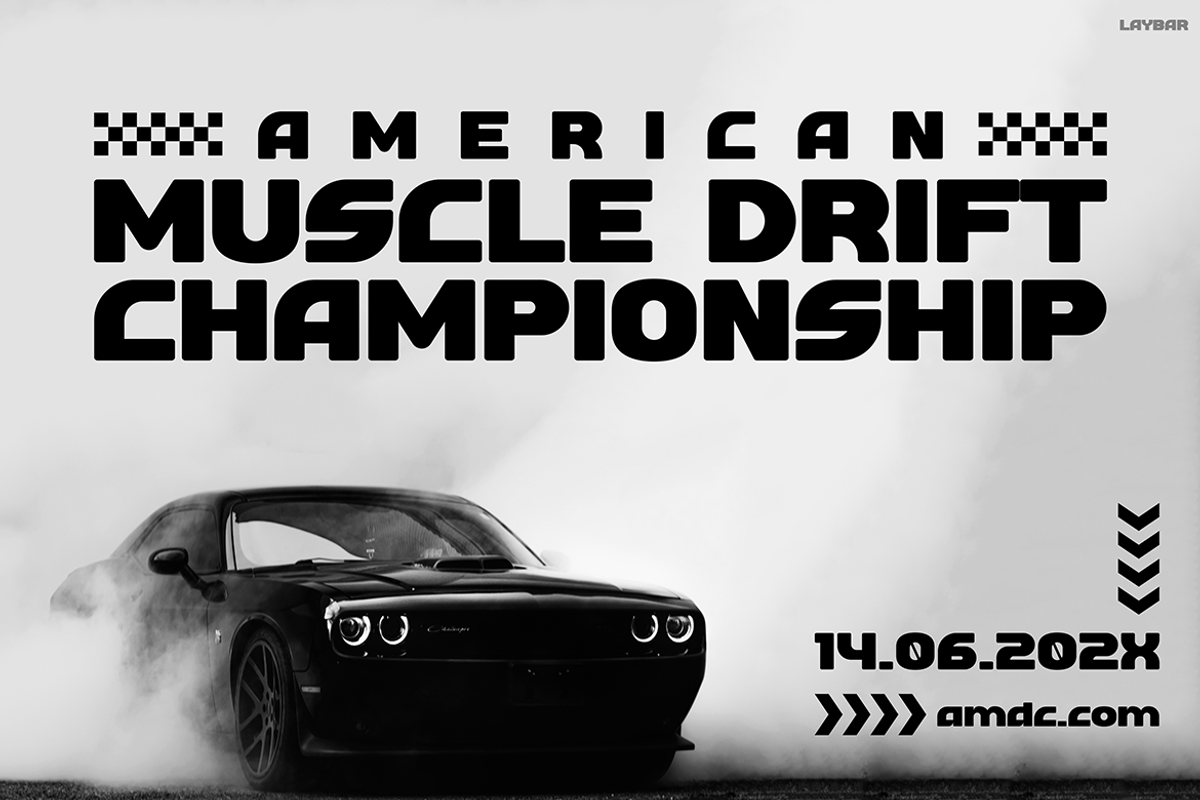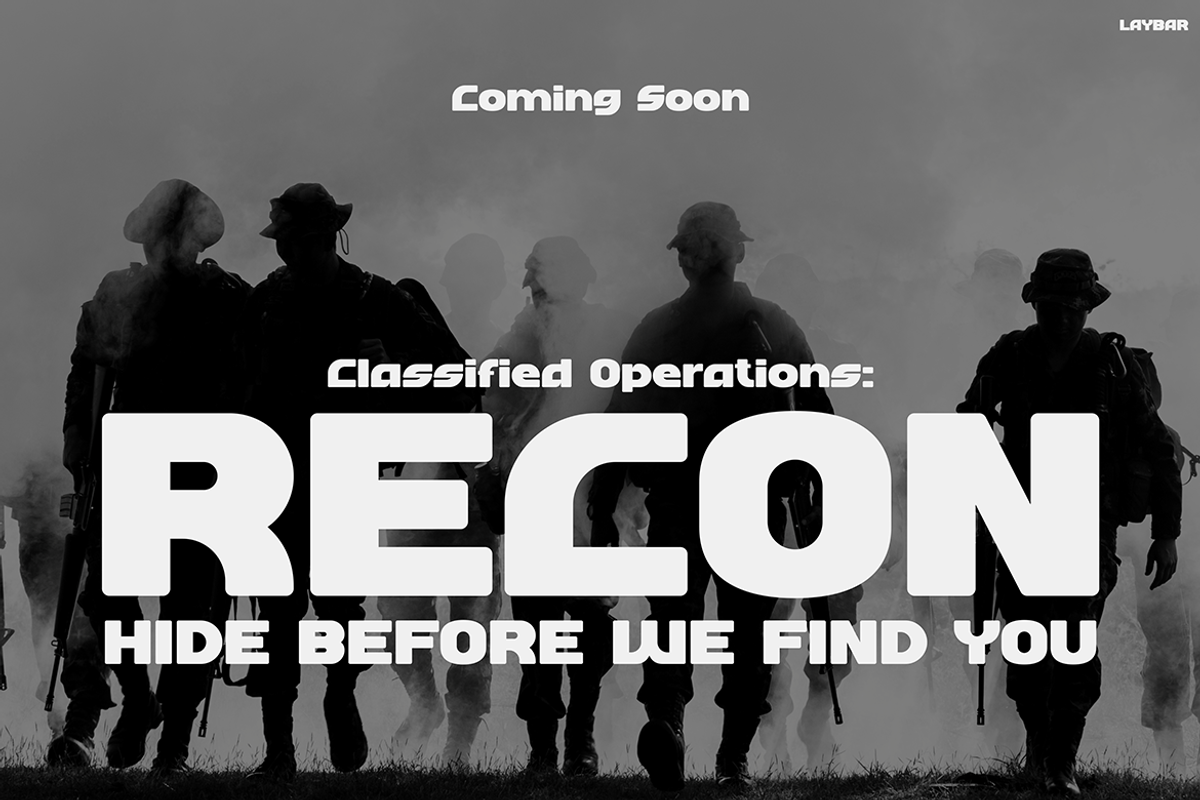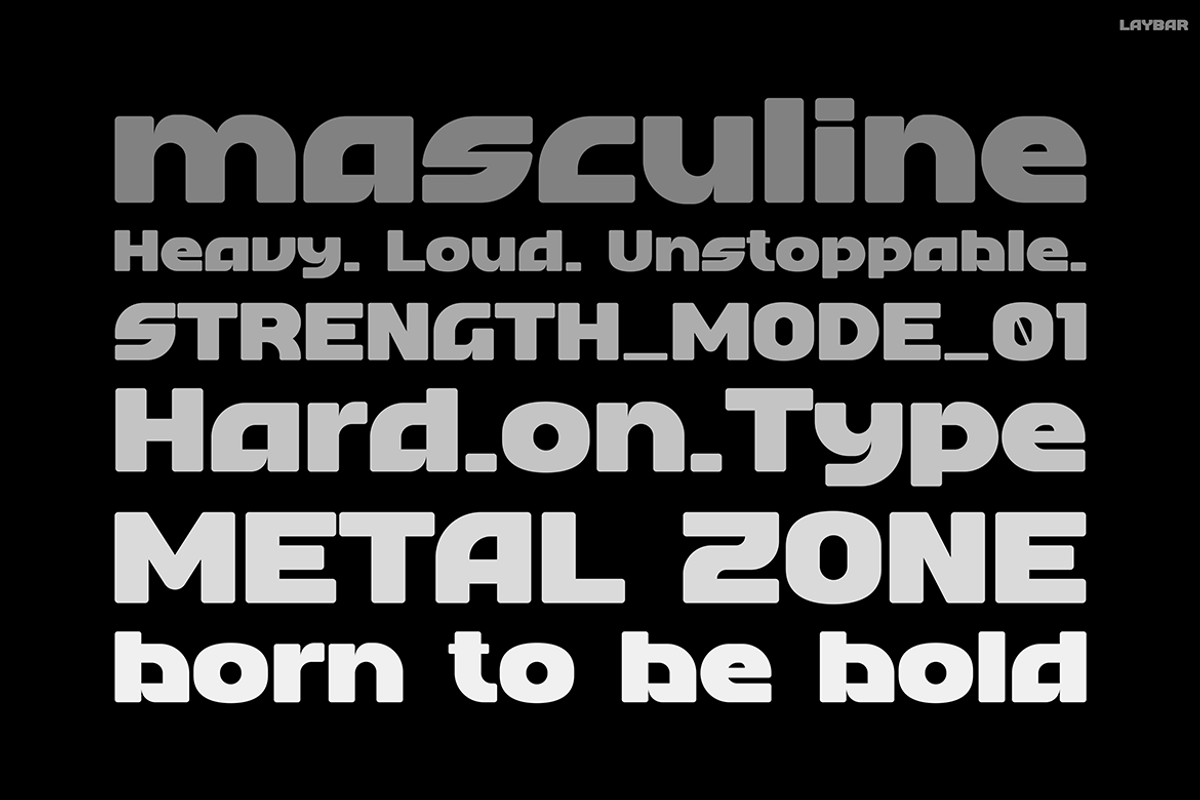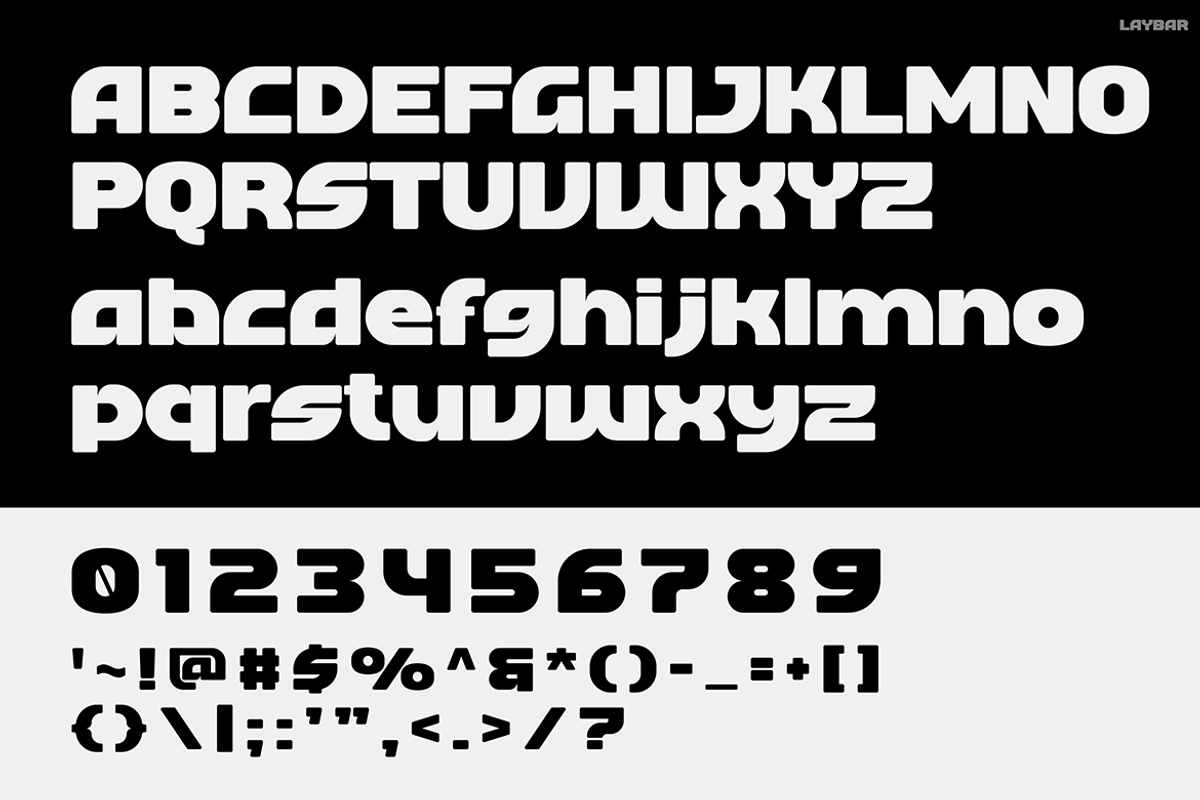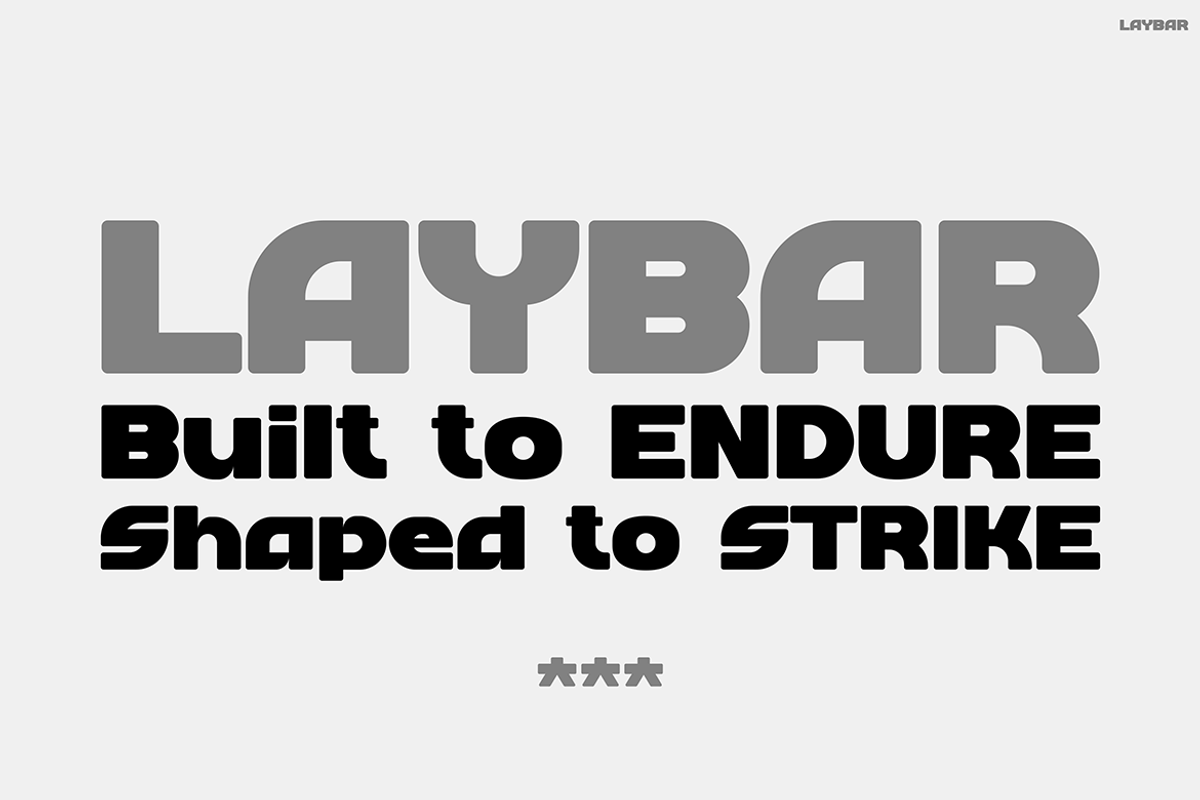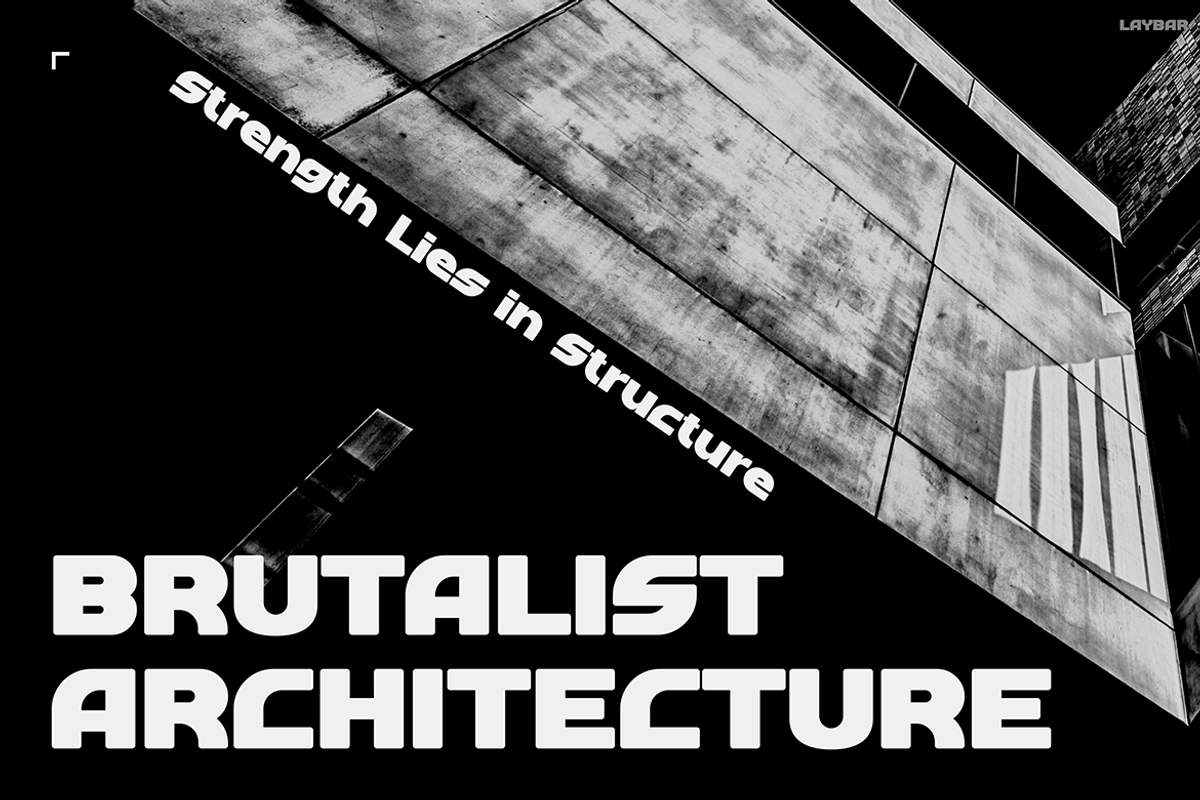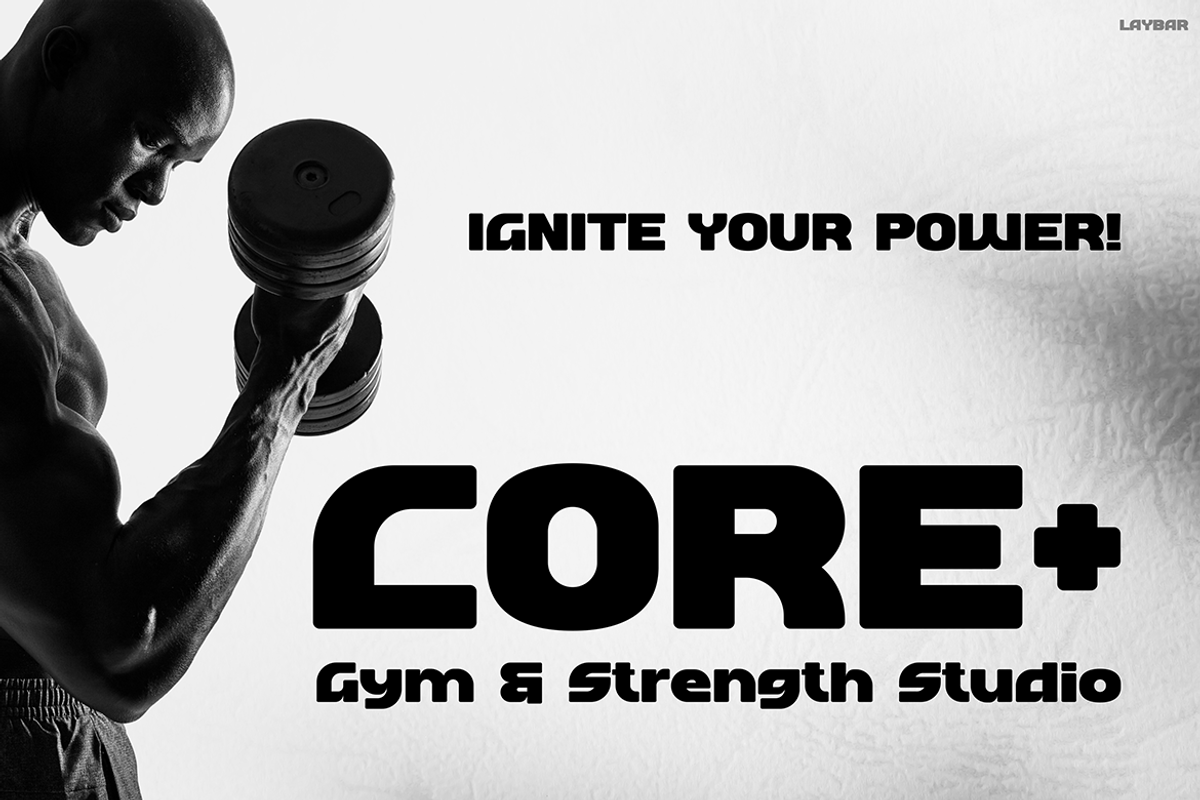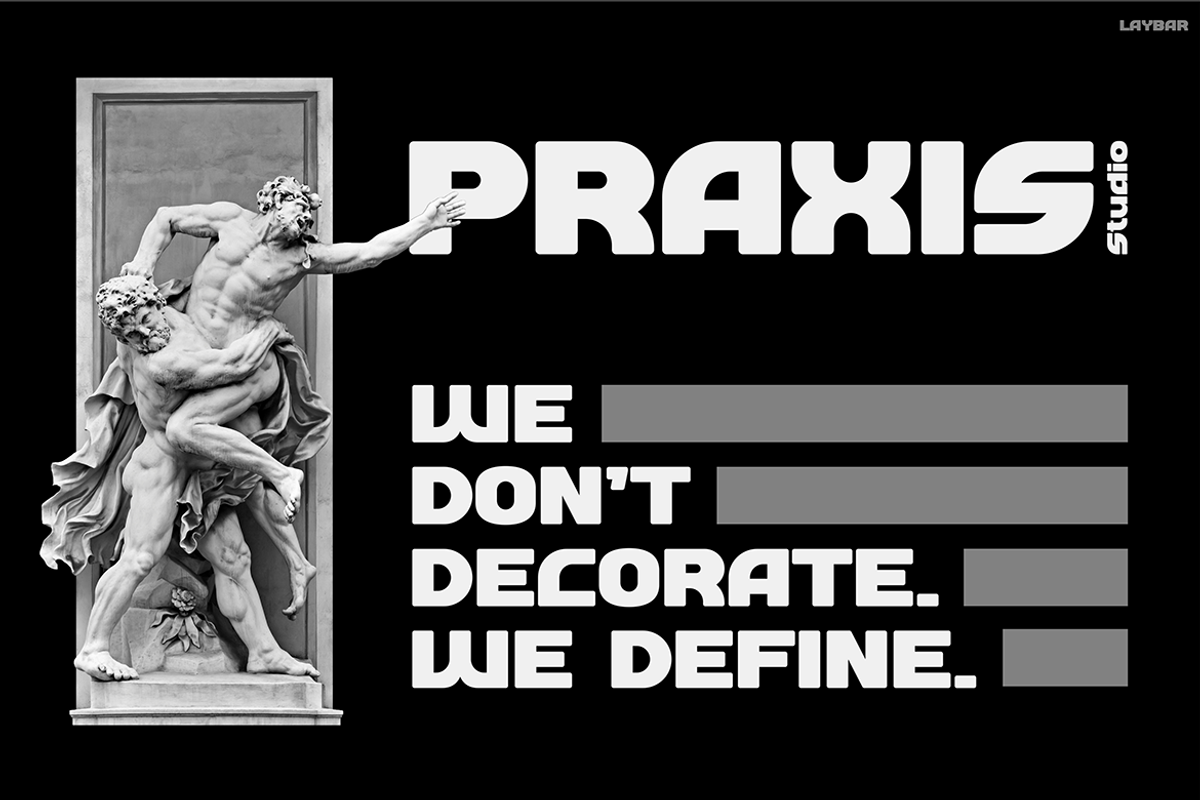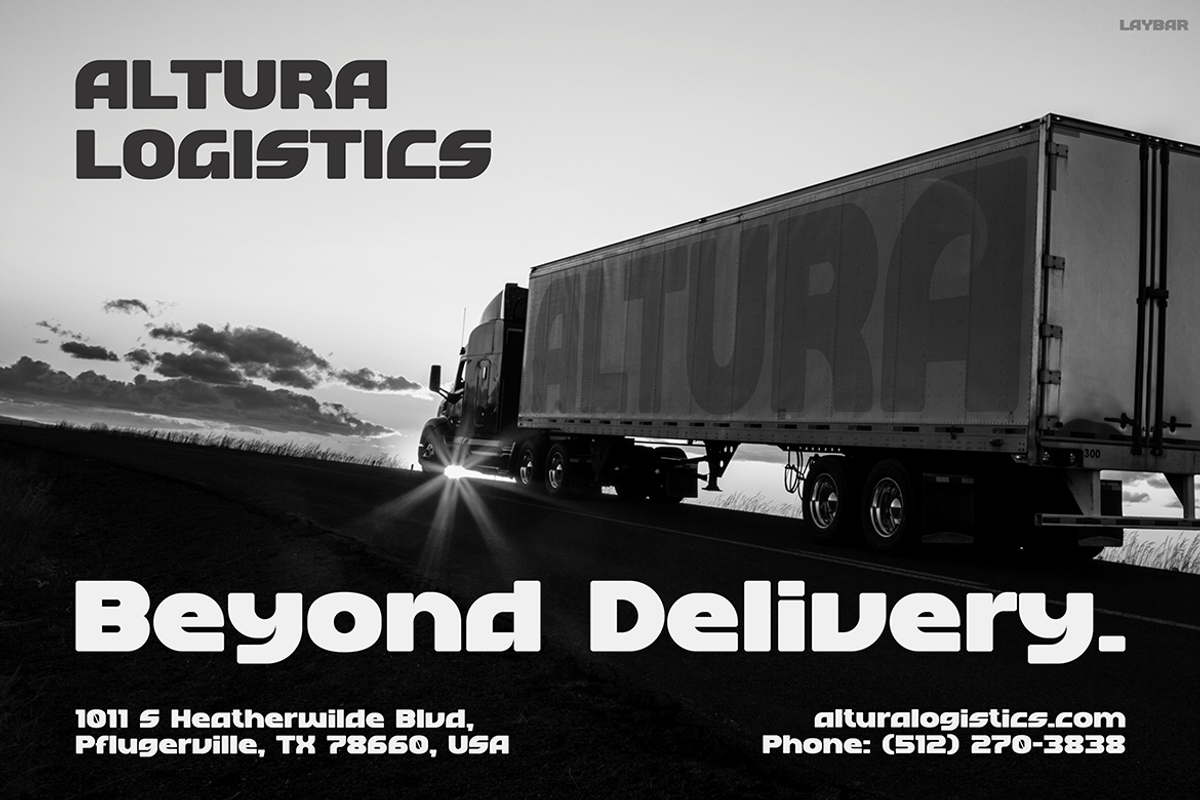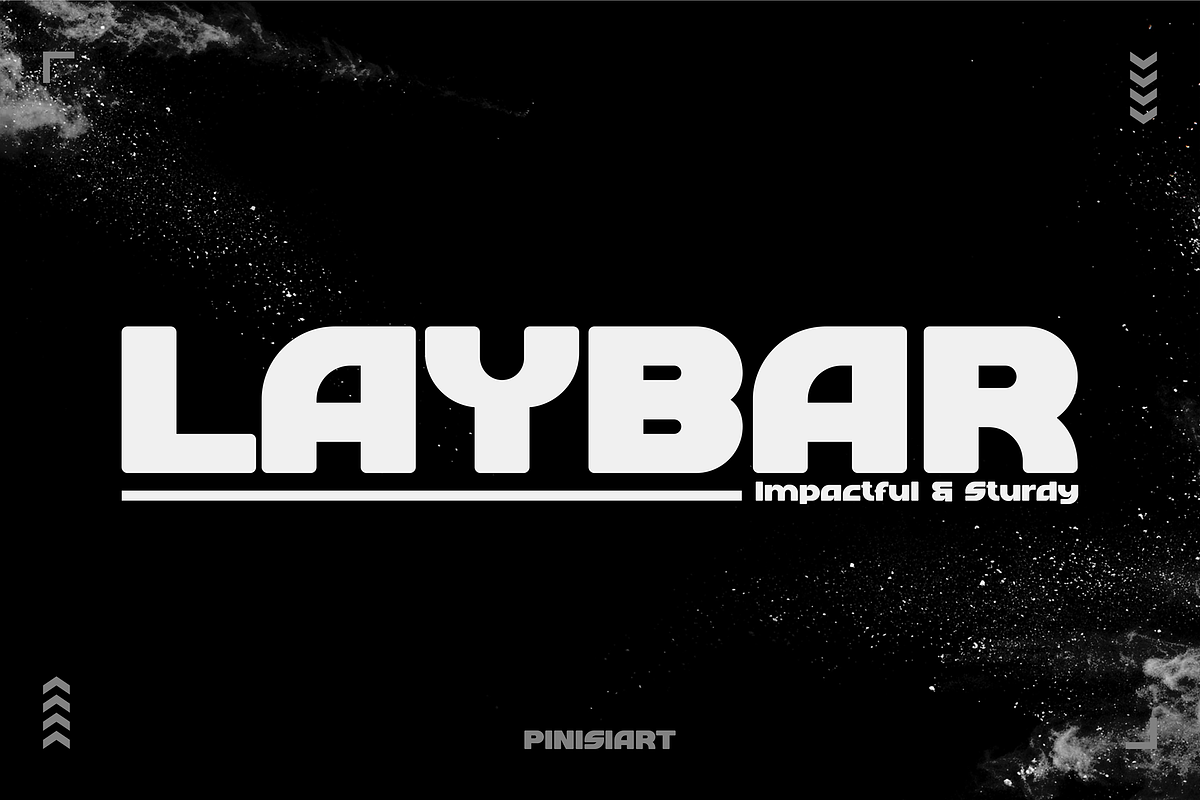
LAYBAR
Instagram Font LAYBAR – Bold, Industrial, and Built to Make a Statement
Instagram Font LAYBAR is a bold, industrial font designed to dominate attention from the very first glance. Its thick strokes, square shapes, and clean curves make it both powerful and visually satisfying. As a result, it brings an unmistakable presence to any design it touches.
What sets this font apart is its combination of brutalist strength and modern styling. Unlike many heavy fonts, LAYBAR avoids looking outdated. Instead, it feels fresh and sharp—thanks to its clean spacing and geometric rhythm. Even when used in compact layouts, it maintains excellent legibility and visual punch.
Moreover, the font’s adaptability makes it suitable for various design themes. Whether you’re creating for print or digital, LAYBAR always performs. You can see its versatility in mockups—from fitness branding and military posters to trucking ads and Instagram graphics.
Every character is crafted to feel stable, grounded, and confident. Additionally, subtle rounding in the corners prevents the font from feeling too harsh. In short, LAYBAR is all about balance: strong yet smooth, loud but clear.